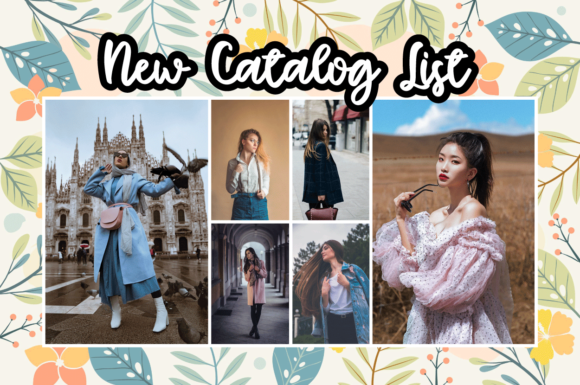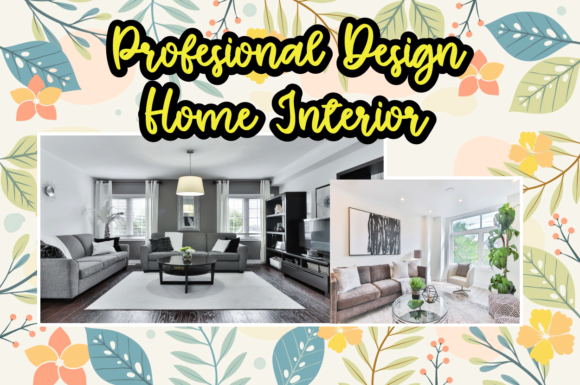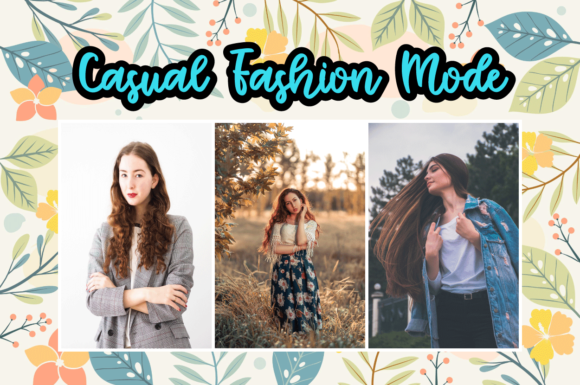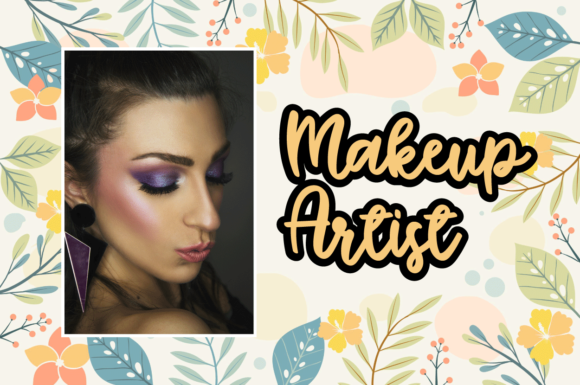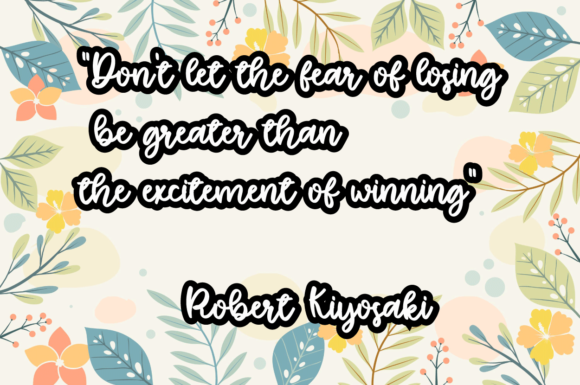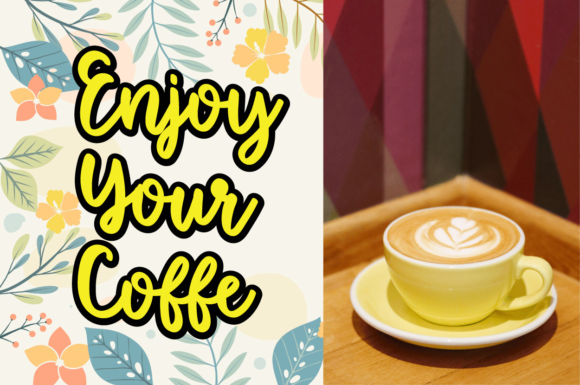
Introduction to New Boyfriend Font Font
Fonts play a crucial role in design, and the New Boyfriend Font font is a typeface that brings both character and versatility to any project. Whether you’re working on a branding project, a website, or a print design, the New Boyfriend Font font offers a unique style that can elevate your work.
New Boyfriend is a cute, friendly and flowing handwritten font.
This original look will appeal to a wide range of crafty ideas, from letterheads and titles, to stationery .
Key Features of New Boyfriend Font Font
Why Choose New Boyfriend Font Font?
The New Boyfriend Font font is more than just a typeface – it’s a design tool that helps you communicate your message with style and clarity. Its unique character set and versatile design make it suitable for a wide range of applications, from elegant invitations to bold headlines.
With its carefully crafted letterforms and balanced proportions, the New Boyfriend Font font ensures readability and visual appeal across all mediums.
What makes New Boyfriend Font font special?
The New Boyfriend Font font stands out with its unique design, exceptional readability, and versatility across various design applications.